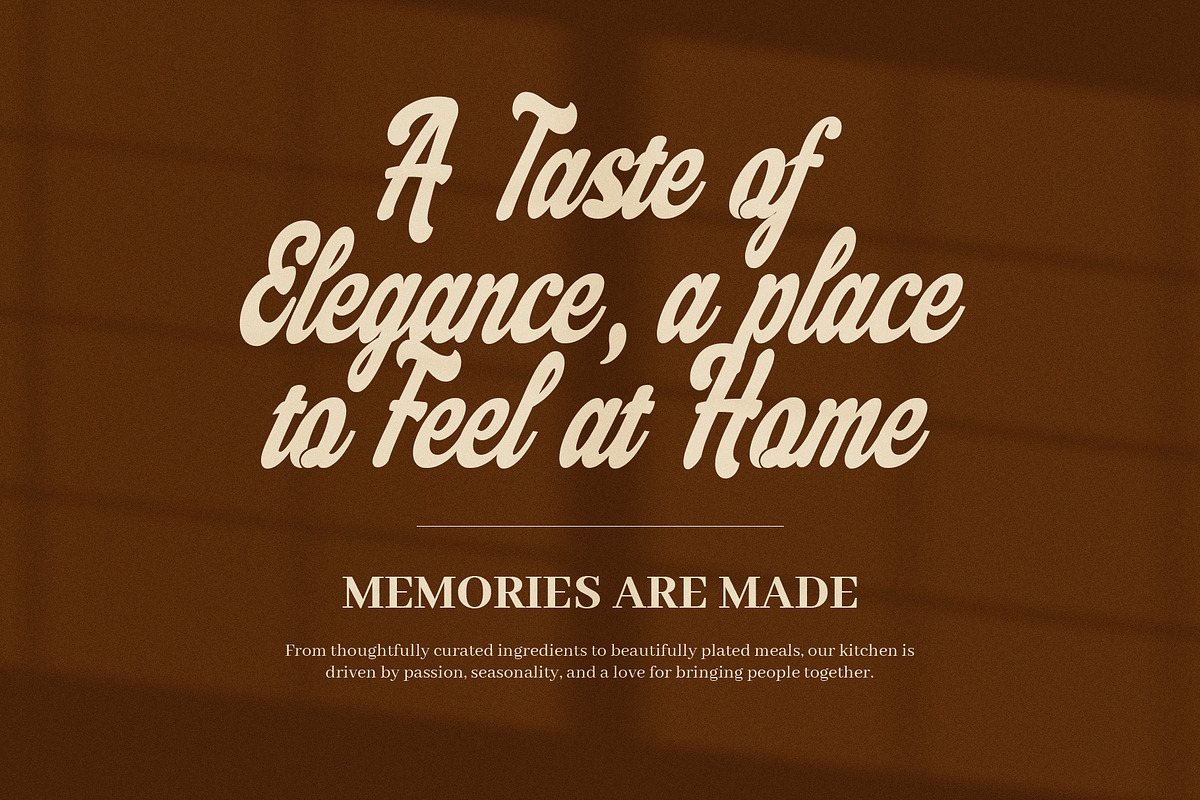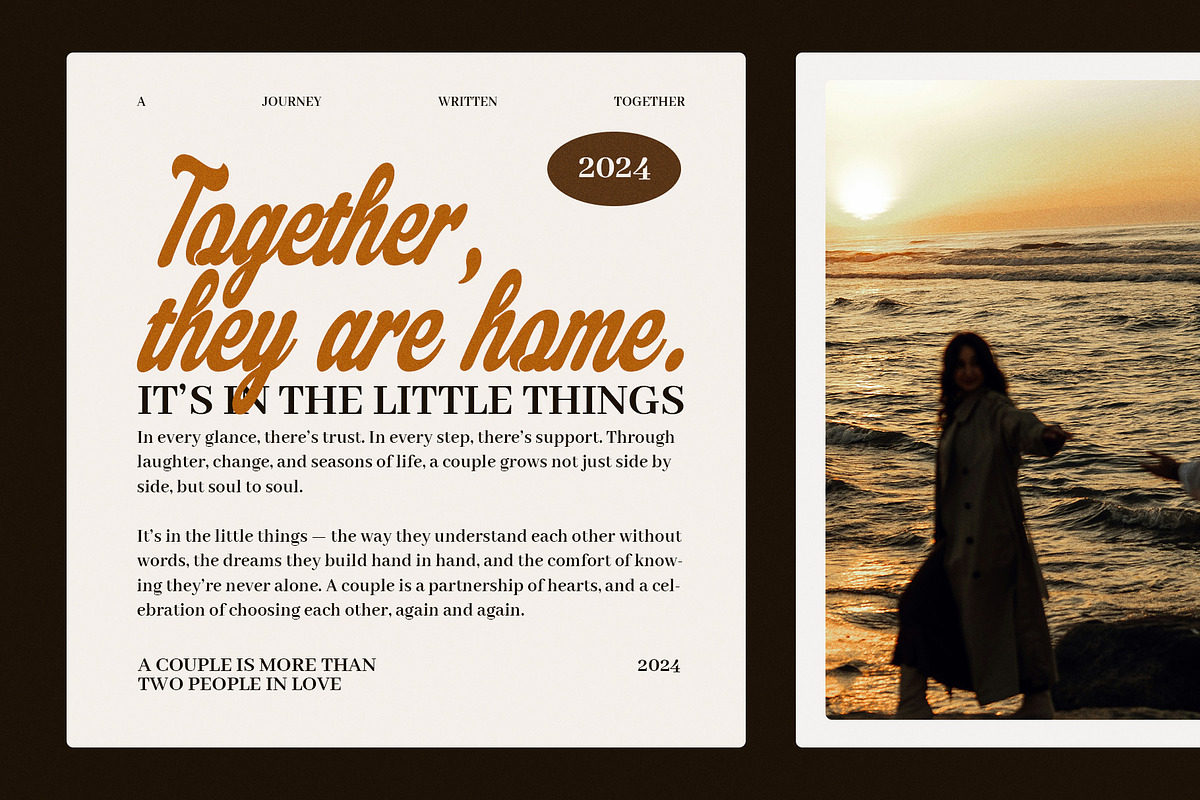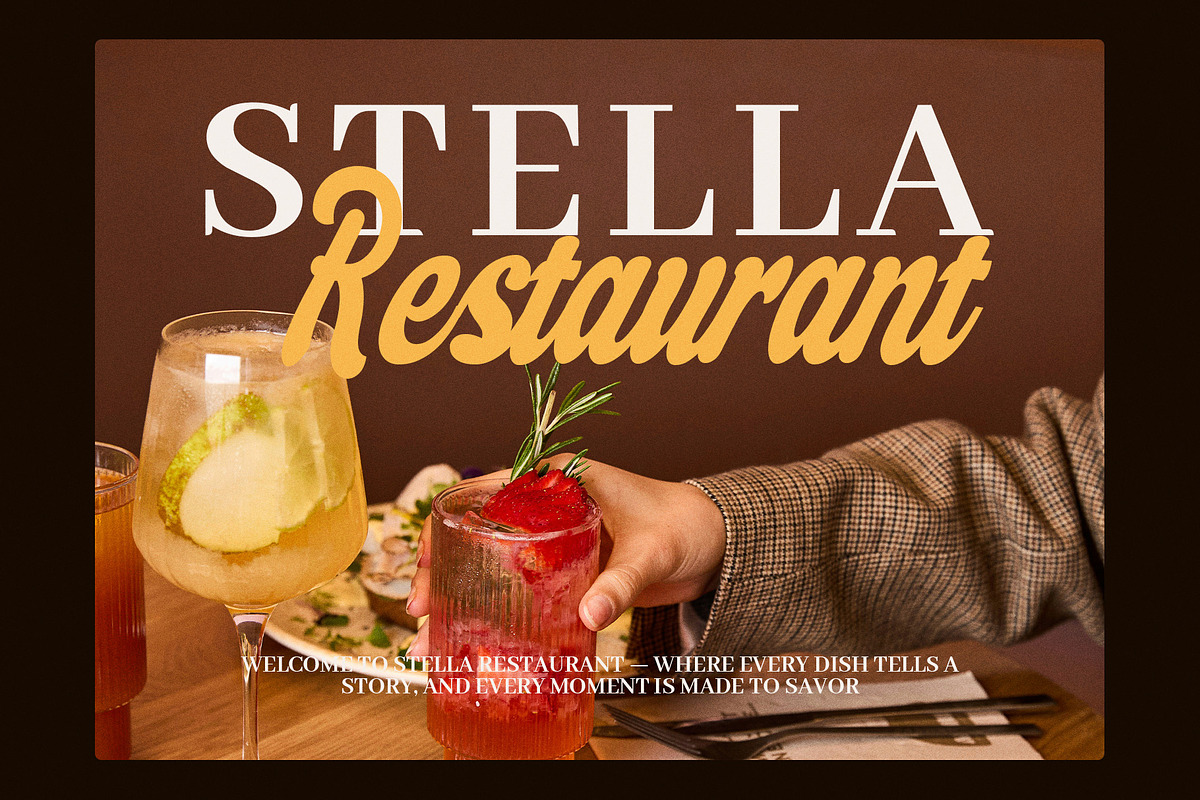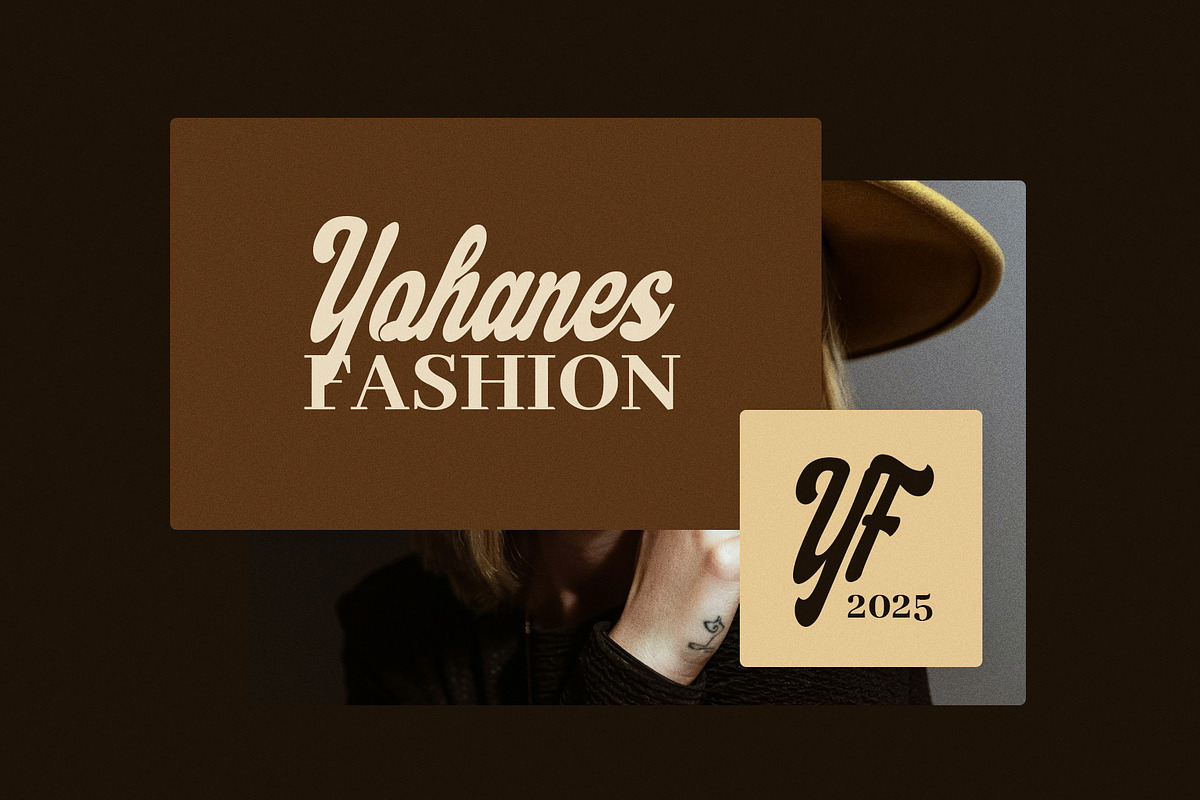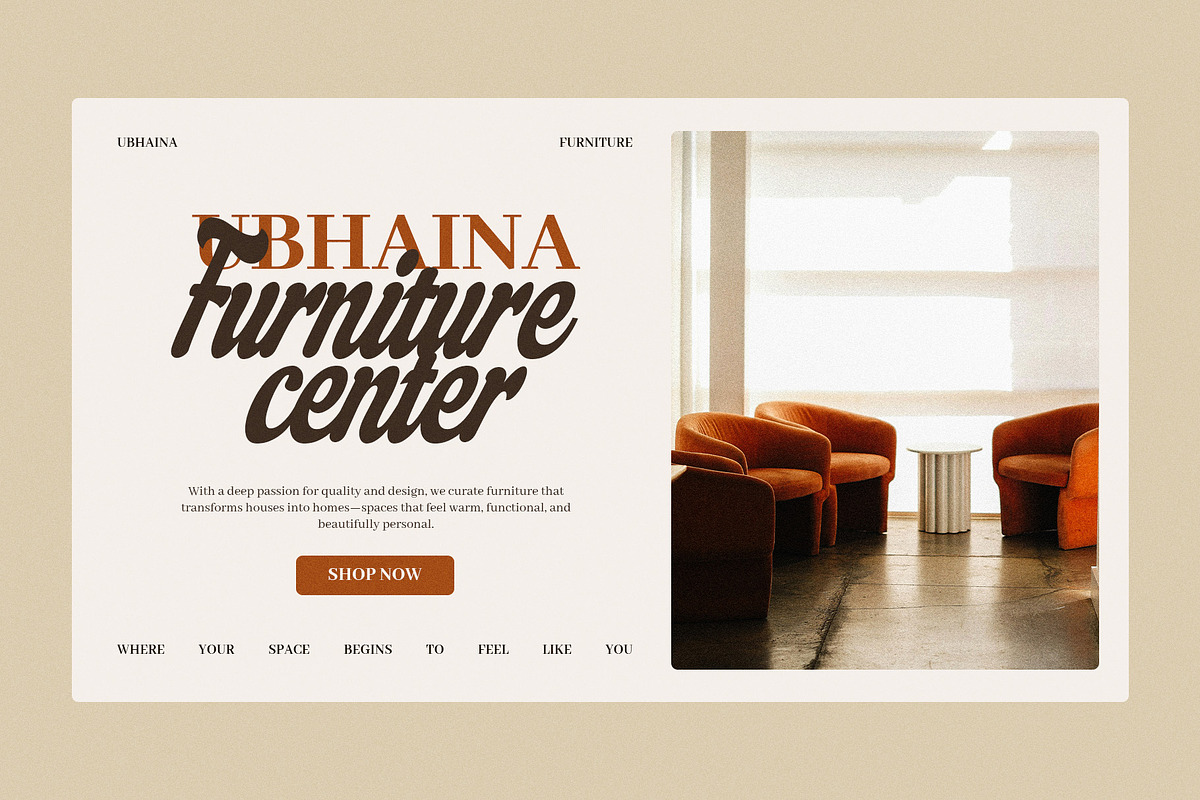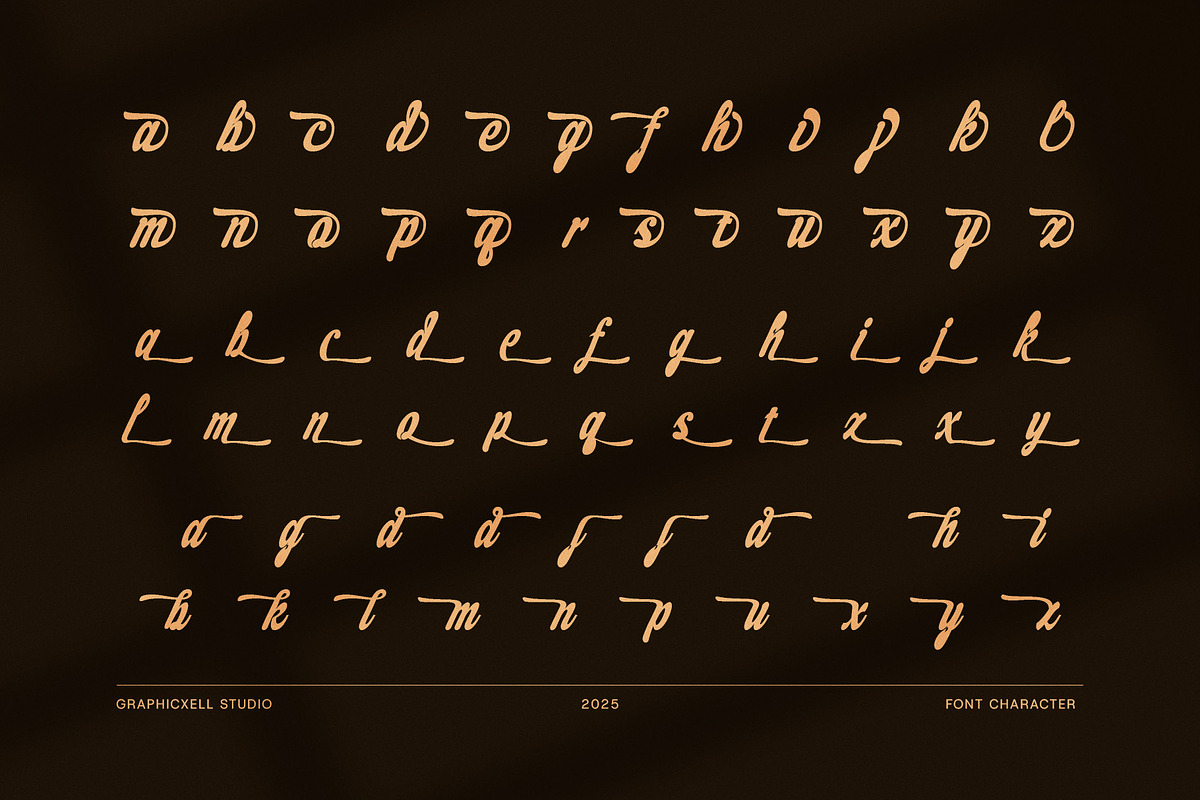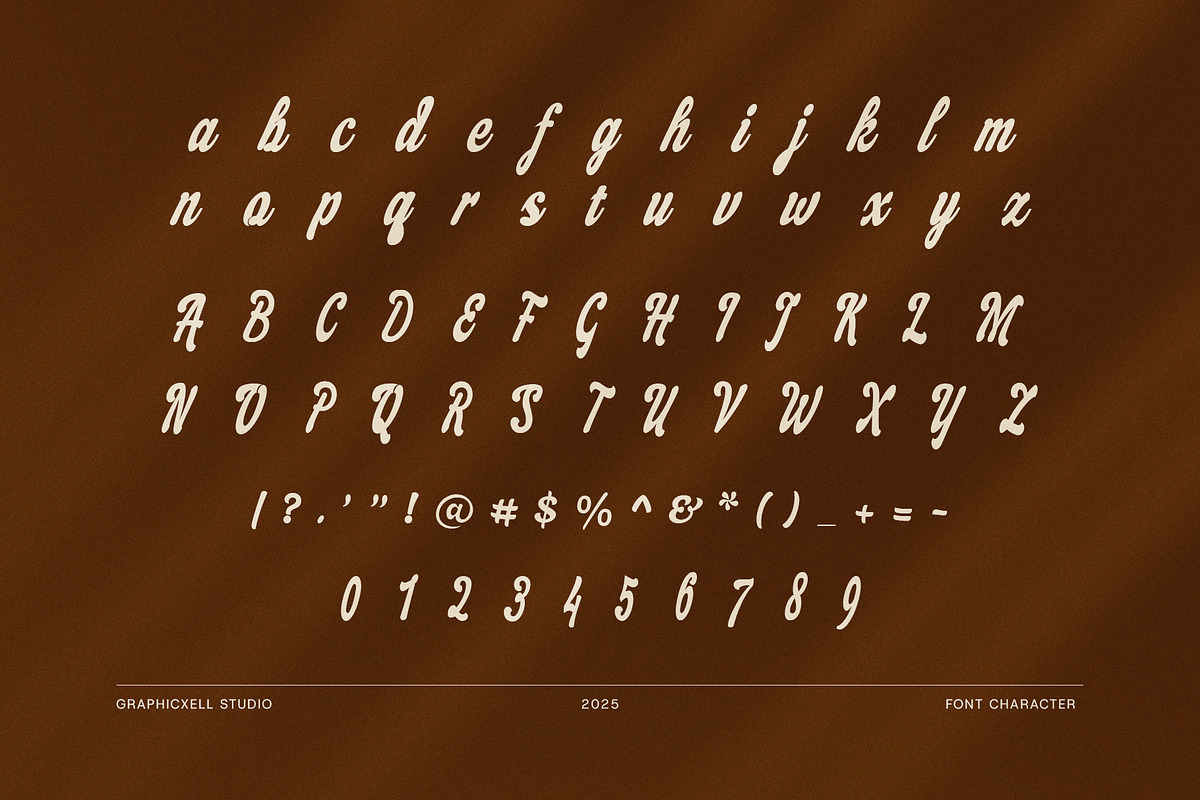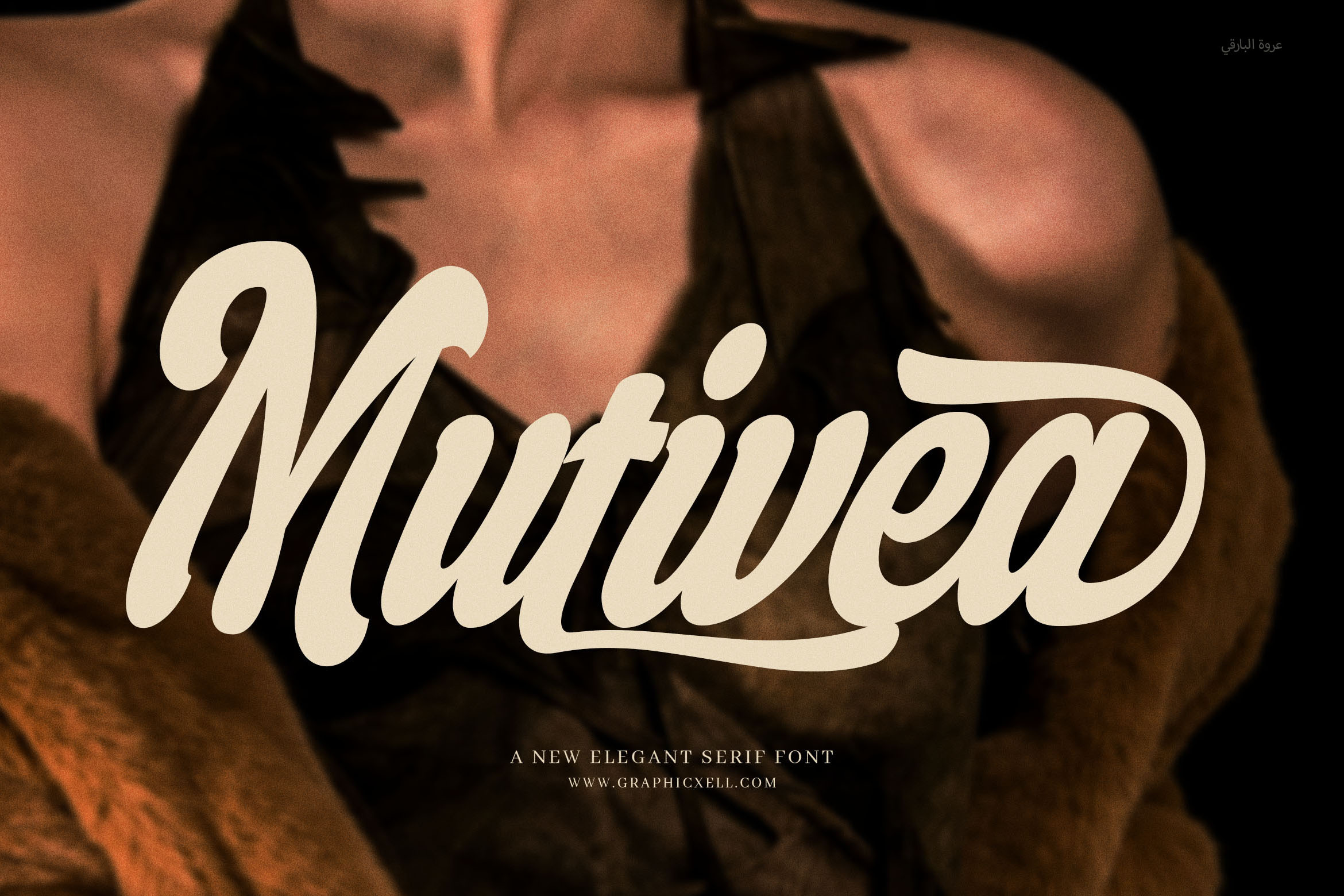
Mutivea Script Font
Introducing the Mutivea Script Font – a refined and elegant script typeface that blends timeless beauty with modern versatility. This font features smooth, flowing strokes and a variety of alternate calligraphy characters that allow for unlimited creative expression. Each letter is carefully crafted to bring a personal, stylish touch to your designs.
Perfect for branding, logos, wedding invitations, magazine layouts, music covers, or even boutique websites, Mutivea adapts beautifully to both digital and print formats. Its graceful curves and elegant detail make it an excellent choice for anyone looking to add charm, romance, and a premium feel to their design work.
Moreover, Mutivea includes many stylish alternates that give you flexibility and creativity. Whether you're working on business cards, album art, posters, or social media content, this font enhances every project with sophistication.
Elegant script with a classy and romantic touch
Includes many alternate characters for variation
Ideal for branding, weddings, logos, and invitations
Suitable for print and digital projects
With the Mutivea Script Font, you get more than just a typeface—you get a tool for creating beautiful, expressive, and professional designs. Add a graceful edge to every project and make your visuals stand out with timeless elegance.